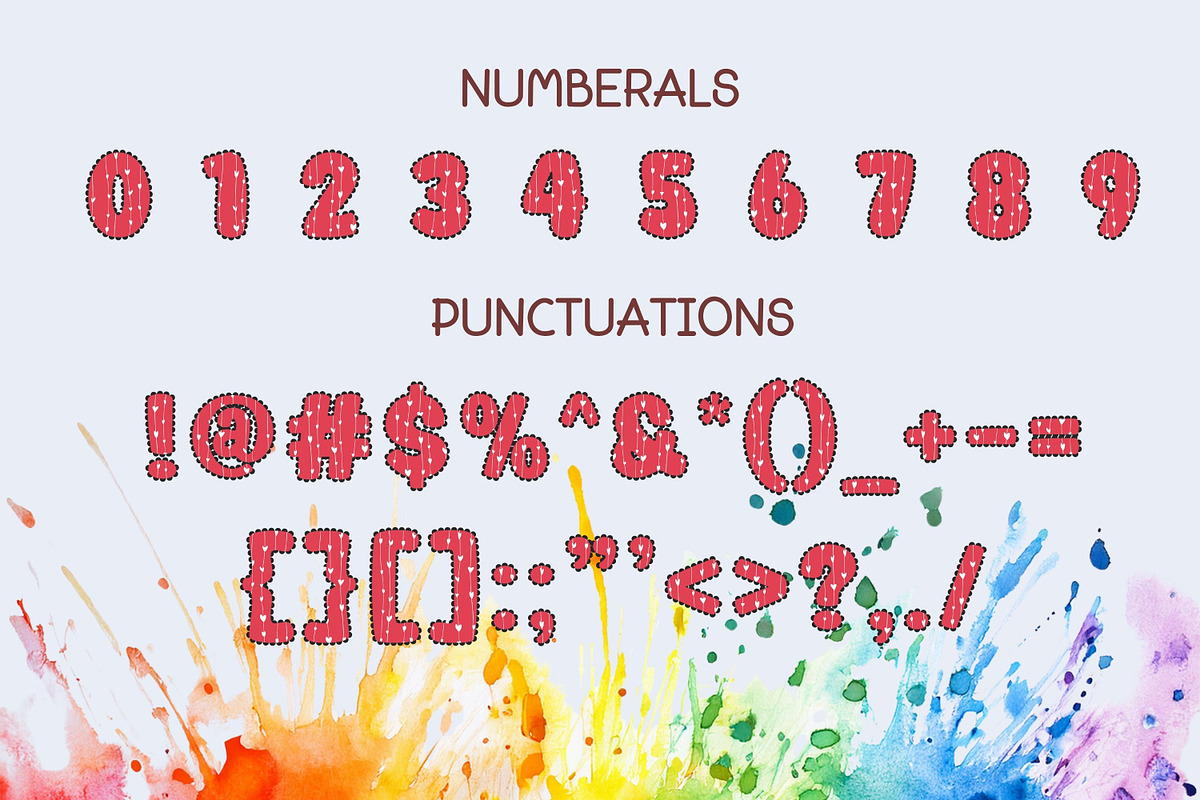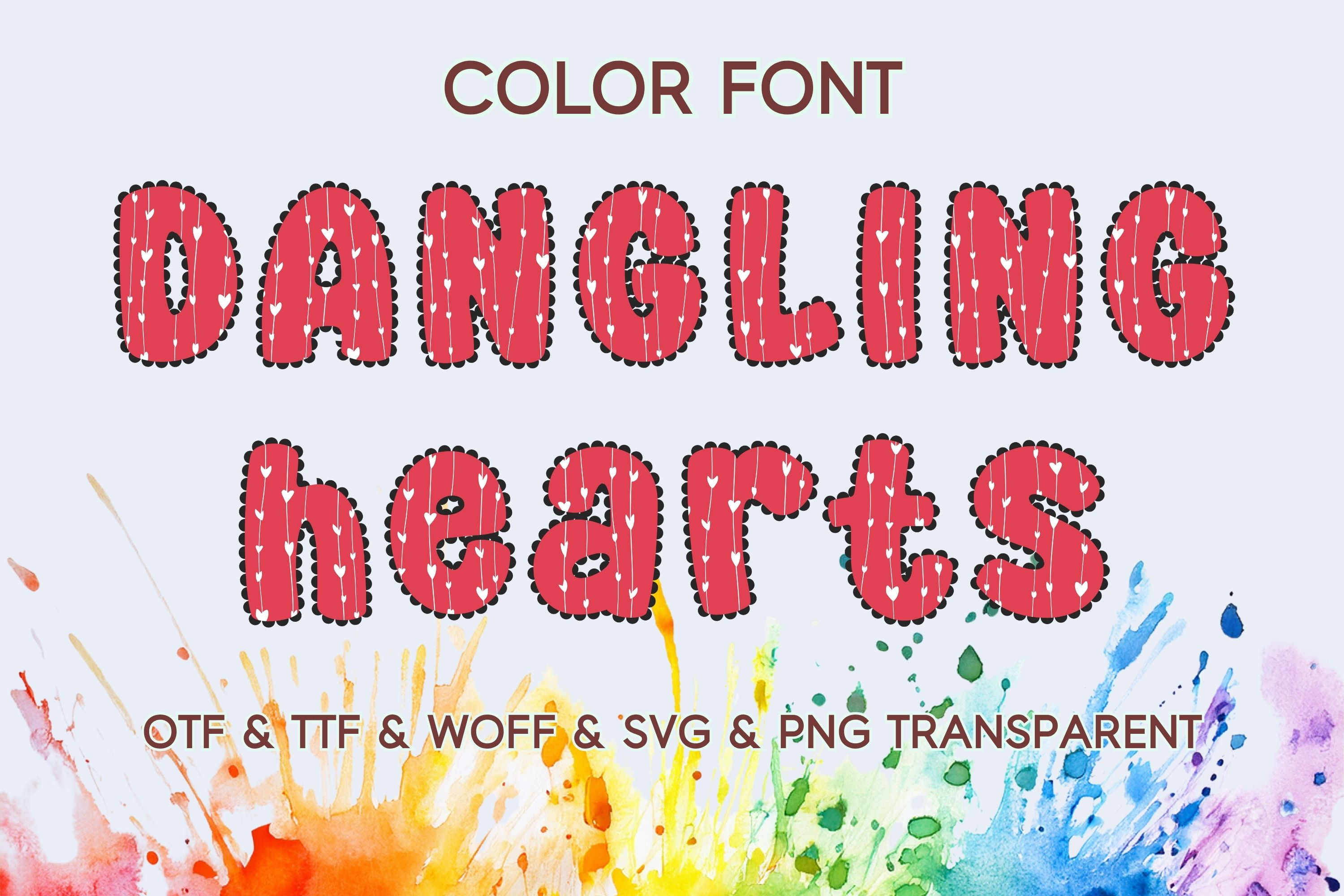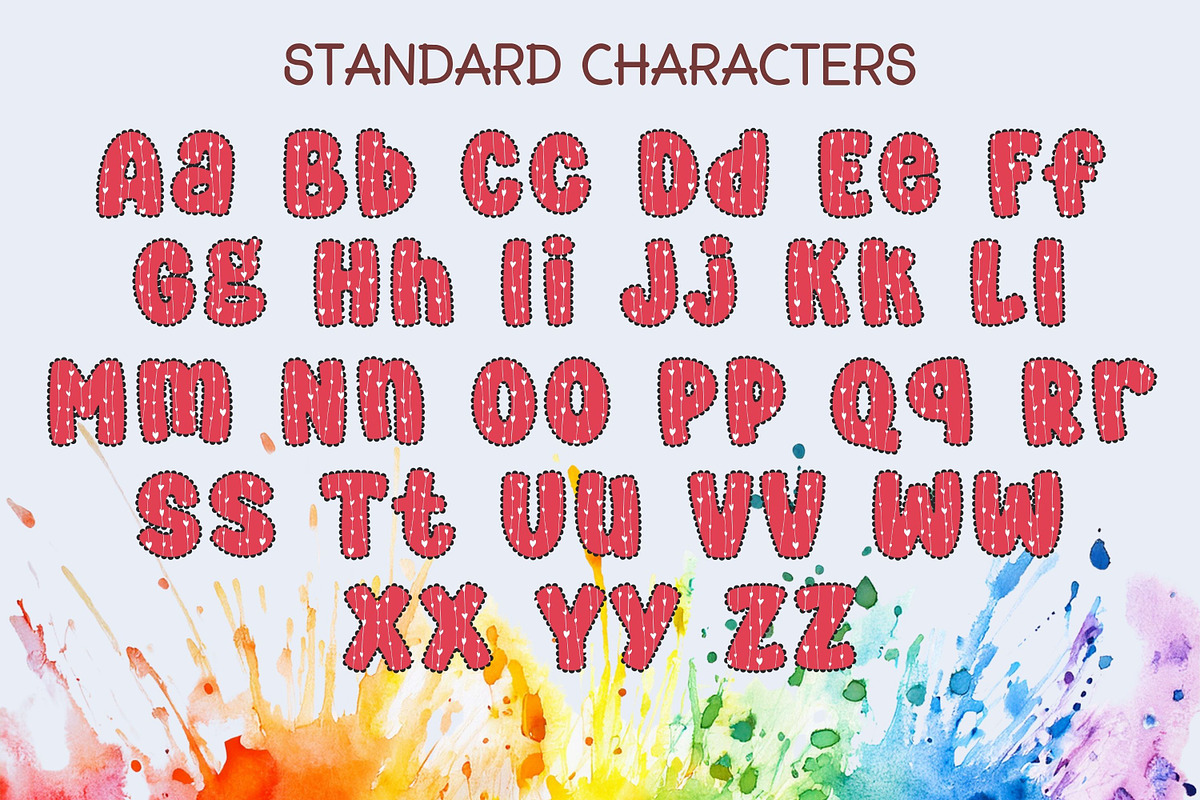
Dangling Hearts - Color Font
Dangling Hearts Color Font is a cute and playful display font featuring charming heart patterns that hang like little strings across each letter. With its bold shape, soft edges, and lovely heart details, this font creates a fun, romantic, and eye-catching look.
This color font is perfect for Valentine’s Day designs, love-themed projects, stickers, sublimation, greeting cards, social media, and creative crafts. The unique dangling heart style adds personality and warmth to your typography, making it ideal for both cute and romantic designs.
Perfect for love themes, Valentine projects, cute designs, and decorative display text.
Add a sweet and lovely touch to your design with Dangling Hearts Color Font ❤️✨